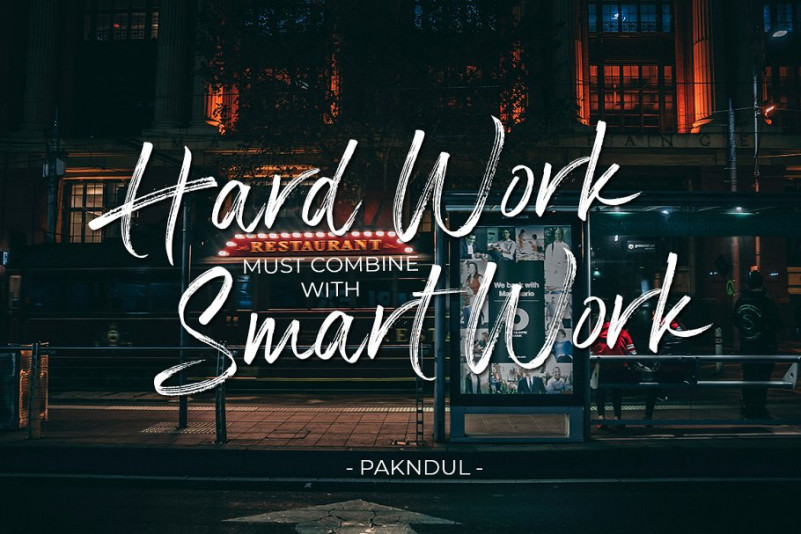
Panterick Brush Font
Panterick Brush Font – Free Demo
Hello friend. This is a Brush Script Font with handletter style. Introducing Panterick Font. Panterick Brush Font This font is perfect for design purposes such as logo design, t-shirt, heading, magazine, newspaper, website, to design quotations, posters, business cards, and others.